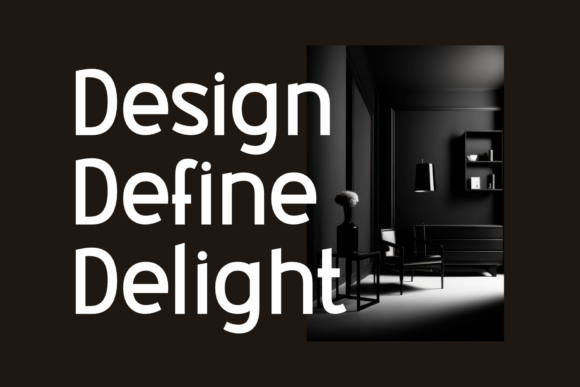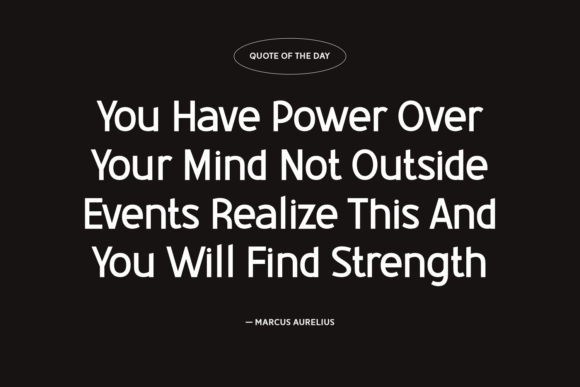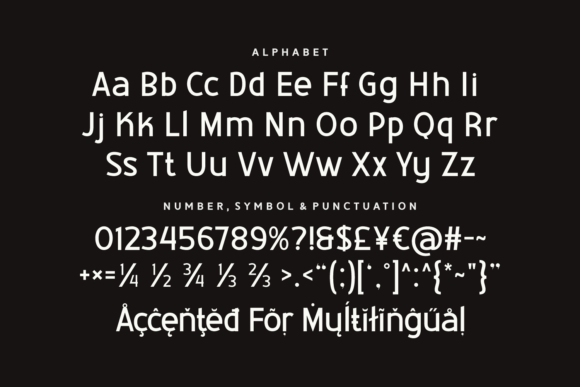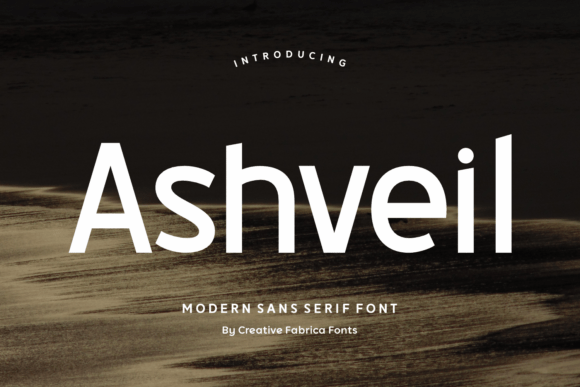
Ashveil Font: The Ultimate Choice for Clarity and Professionalism
In the world of typography, a font can make or break the visual identity of a brand. When it comes to creating a lasting impression, designers and crafters need a font that exudes professionalism, clarity, and trustworthiness. This is where Ashveil Font comes into play – a bold and clean sans serif font designed to elevate corporate branding, tech startups, UI/UX designs, and bold headlines.
The Birth of Ashveil
Ashveil is more than just a font – it’s a carefully crafted tool built to meet the demands of modern communication. With its well-balanced letterforms, Ashveil conveys a sense of trust and stability, making it the perfect choice for businesses looking to establish a strong visual presence. Whether you’re a seasoned designer or a crafty entrepreneur, Ashveil is a reliable workhorse that can help you achieve your branding goals.
Key Features of Ashveil Font
- Bold and Clean Design: Ashveil boasts a bold and clean sans serif design that’s perfect for making a statement. Its sleek lines and minimalist aesthetic ensure that your message is conveyed with clarity and precision.
- Well-Balanced Letterforms: Each letterform in Ashveil is carefully crafted to ensure balance and harmony. This attention to detail results in a font that’s not only visually appealing but also highly legible.
- Professional and Trustworthy: Ashveil’s design is rooted in professionalism and trustworthiness. Its bold and clean aesthetic instills confidence and stability, making it perfect for businesses looking to establish a strong brand identity.
- Versatile and Adaptable: Ashveil is a versatile font that can be used across various mediums, including print and digital media. Whether you’re designing a logo, brochure, or website, Ashveil adapts seamlessly to ensure your message is conveyed with clarity and impact.
Use Cases for Ashveil Font
Ashveil’s versatility and adaptability make it suitable for a wide range of applications. Here are some of the most popular use cases for Ashveil:
- Corporate Branding: Ashveil is perfect for businesses looking to establish a strong visual identity. Its professional and trustworthy aesthetic makes it an excellent choice for logos, letterheads, and marketing materials.
- Tech Startups: Ashveil’s bold and clean design makes it an excellent choice for tech startups looking to make a statement. Its modern aesthetic and sleek lines ensure that your brand stands out in a crowded market.
- UI/UX Designs: Ashveil’s legibility and clarity make it an excellent choice for UI/UX designs. Its well-balanced letterforms ensure that your interface is intuitive and user-friendly.
- Bold Headlines: Ashveil’s bold design makes it perfect for creating attention-grabbing headlines. Whether you’re designing a poster, billboard, or social media graphic, Ashveil is sure to turn heads.
Why Choose Ashveil Font?
With so many fonts available, why choose Ashveil? Here are just a few reasons why Ashveil stands out from the crowd:
- Unique Design: Ashveil’s bold and clean design sets it apart from other fonts. Its unique aesthetic ensures that your brand stands out in a crowded market.
- High Legibility: Ashveil’s well-balanced letterforms ensure high legibility, even at small font sizes. This makes it perfect for use in a variety of applications, from body text to headlines.
In conclusion, Ashveil Font is a powerful tool that can help designers and crafters elevate their branding and design projects. Its bold and clean sans serif design, well-balanced letterforms, and professional aesthetic make it perfect for corporate branding, tech startups, UI/UX designs, and bold headlines. Whether you’re a seasoned designer or a crafty entrepreneur, Ashveil is a reliable workhorse that can help you achieve your goals. So why wait? Try Ashveil Font today and discover the difference it can make in your design projects!